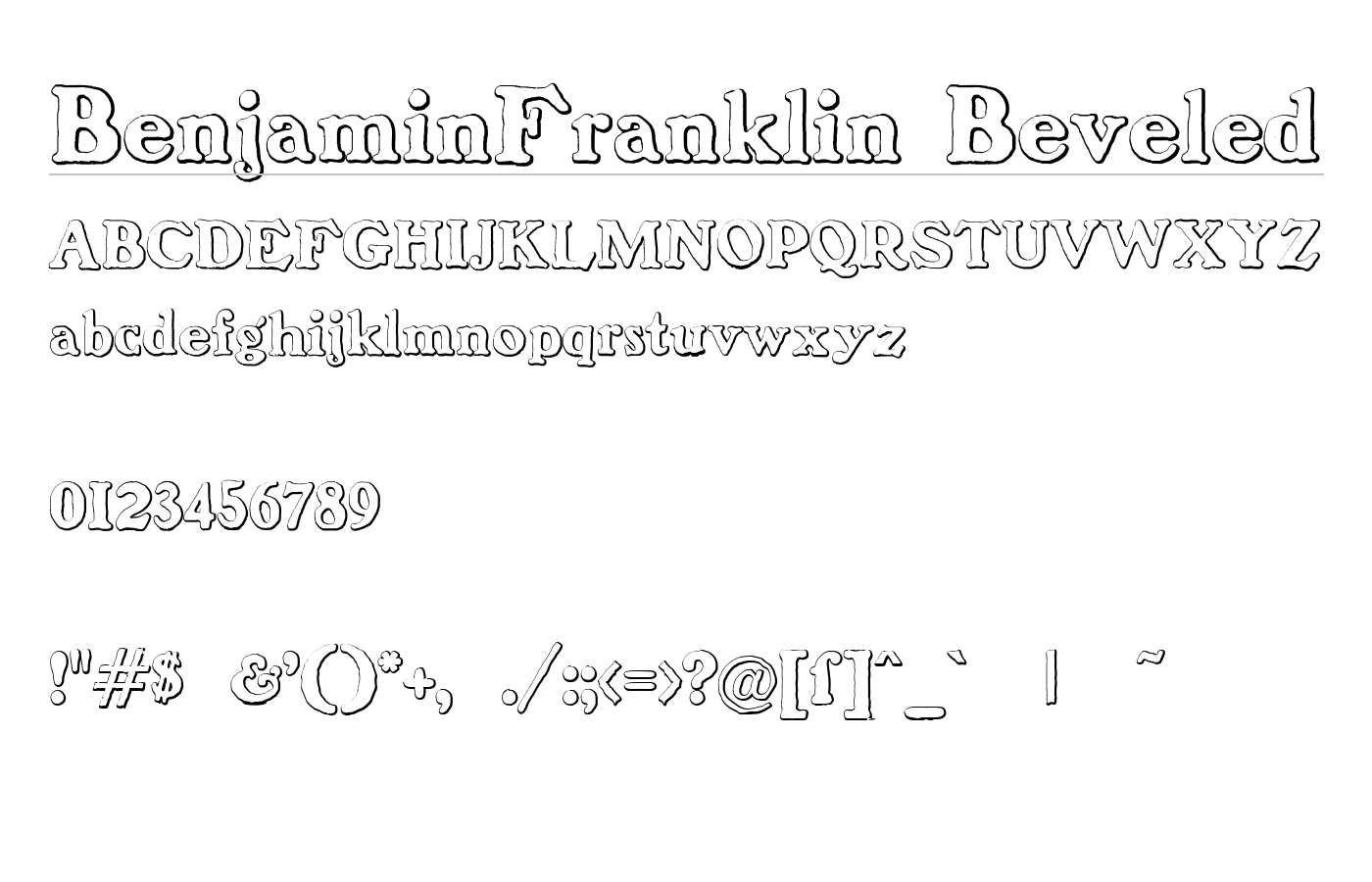
BenjaminFranklin Beveled is a distinctive serif typeface with a carved, engraved appearance that evokes vintage charm and craftsmanship. Its medium weight and moderately condensed forms feature thick, angled serifs and subtle bevel details, giving the font a textured, dimensional look ideal for classic or historical themes. This font works beautifully for eye-catching headlines, logos, and packaging that seek a nostalgic yet refined character.
BenjaminFranklin Beveled Font
About BenjaminFranklin Beveled Font
| Font family | BenjaminFranklin Beveled Font |